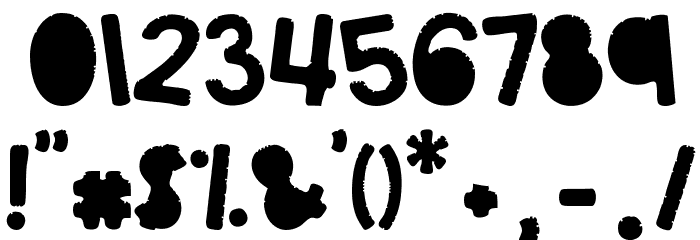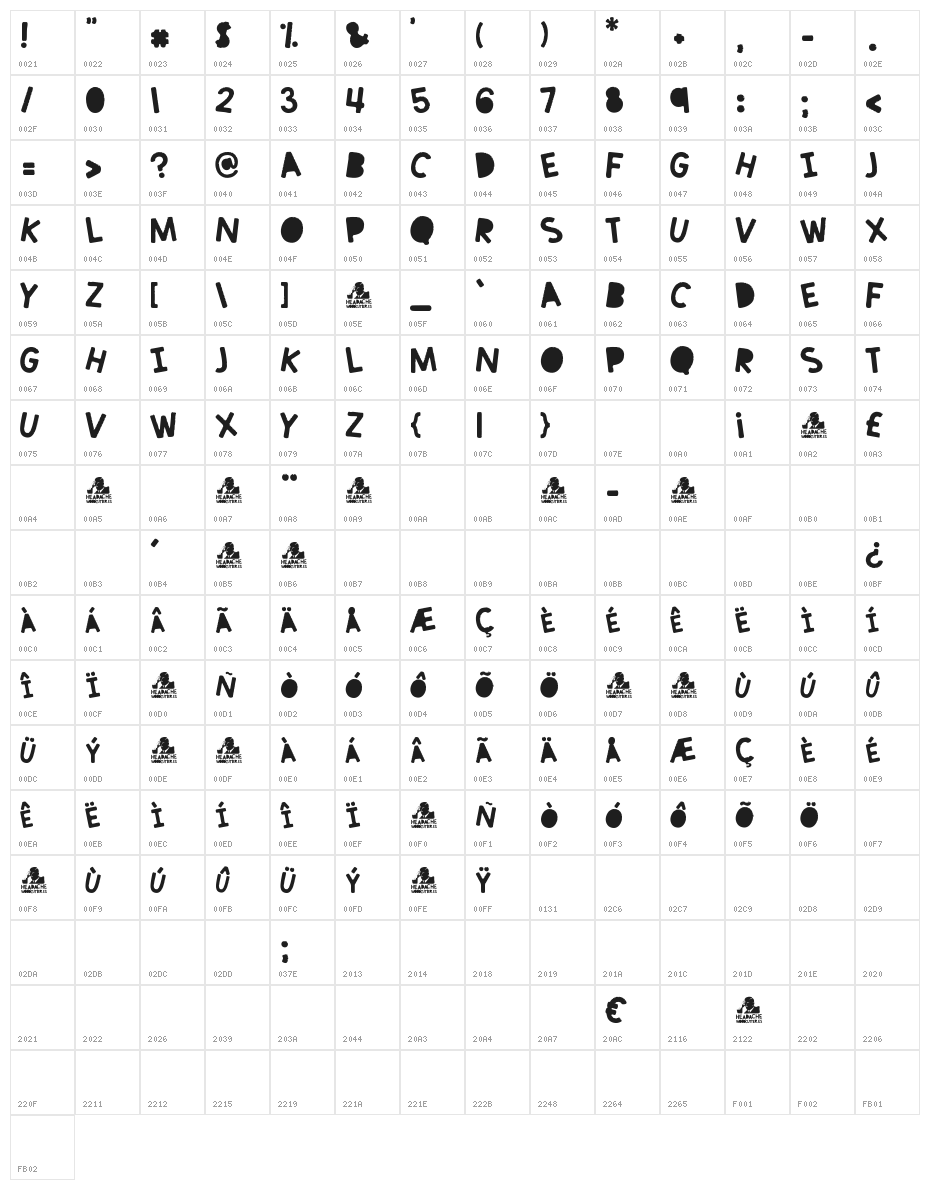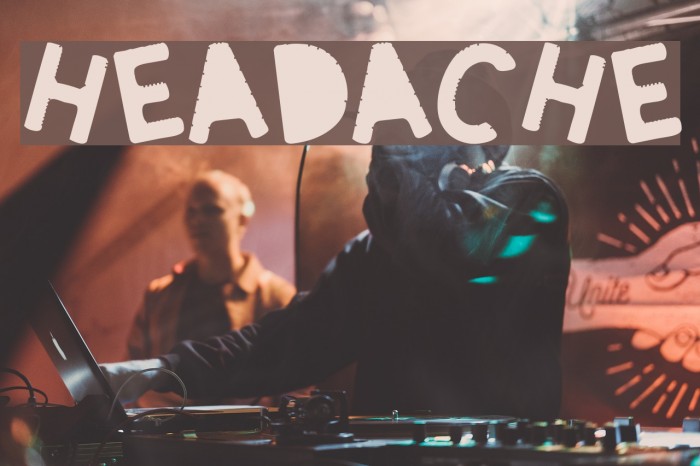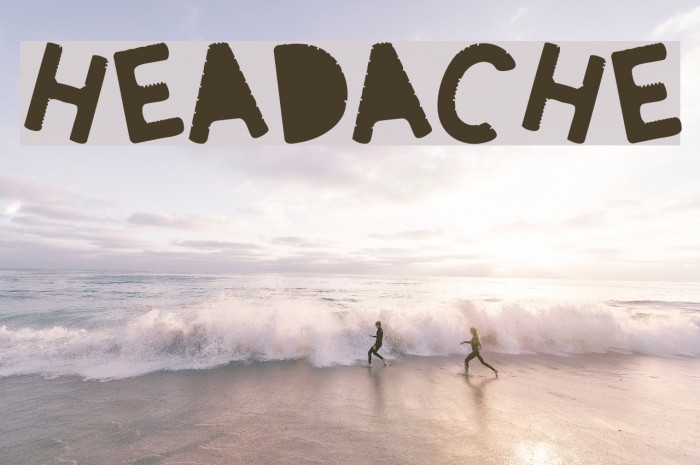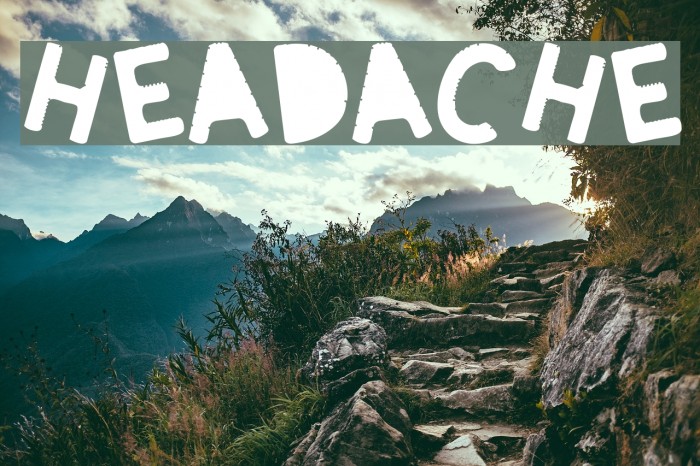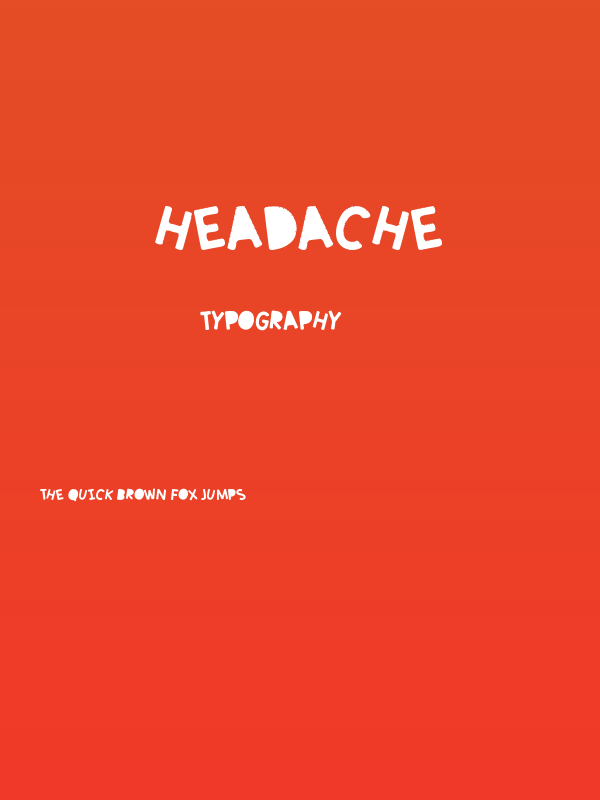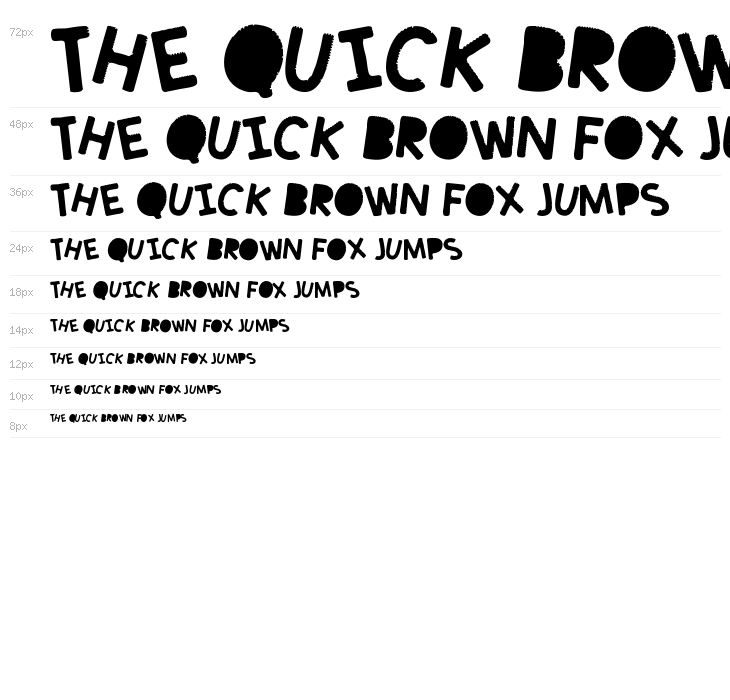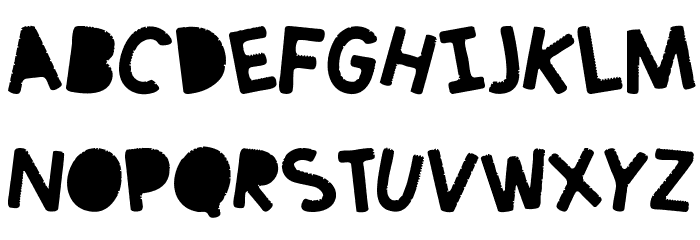
Headache Font
Headache Description
This font features a playful and bold style with a hand-drawn appearance. The characters are irregularly shaped, giving them a whimsical and informal look. The uppercase and lowercase letters maintain a consistent style, with rounded edges and a slightly uneven baseline, enhancing the casual feel. The numbers and special characters follow the same design principles, ensuring uniformity across all glyphs. The font's boldness and unique character shapes make it stand out, making it suitable for creative and fun projects. Its distinct style can add a touch of personality and charm to any design.
| Proposed Projects | Ideal for children's books, comic strips, playful branding, and creative posters. |